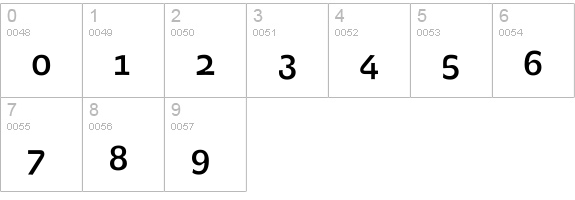
SpotkaMedium Font Details
SpotkaMedium is a versatile and modern font that exudes elegance and sophistication. Its clean lines and smooth curves make it perfect for a wide range of design projects, from branding to editorial design. This font strikes the perfect balance between professionalism and creativity, making it suitable for both corporate and creative endeavors. What sets SpotkaMedium apart is not just its stylish appearance, but also the fact that it is freely available to download at FontsMarket.com. This means that you can easily access this high-quality font without any cost, making it a valuable asset for designers, businesses, and individuals alike. Whether you're working on a logo, website, poster, or any other design project, SpotkaMedium is sure to elevate your work with its timeless appeal and versatility. Download it today and add a touch of sophistication to your projects with this stunning font.